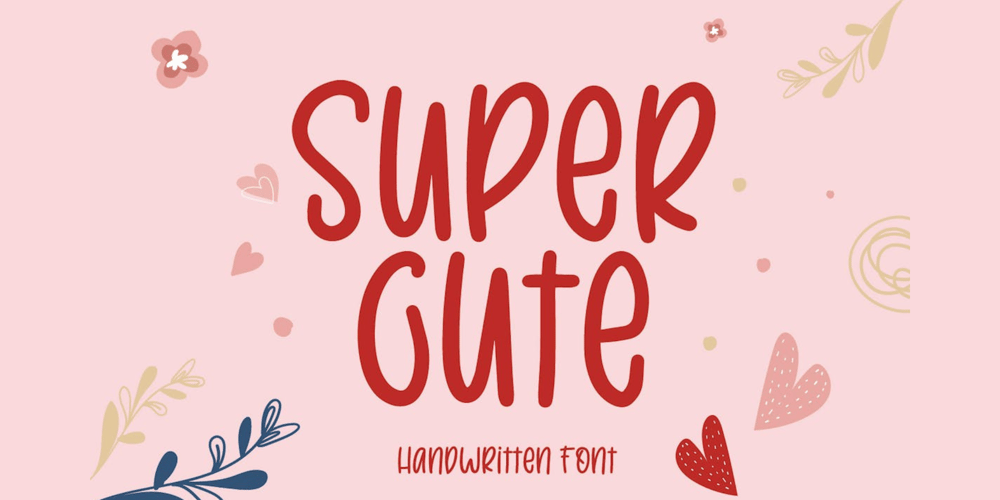
Super Cute
Super Cute font
Super Cute Font Family was designed by Irpan Maulana and published by Create Big Supply. Super Cute contains 1 styles and family package options. Created with love and attention to detail, this font instantly brings out the natural characteristics of your projects, adding a playful and whimsical touch. Whether you’re designing websites, SVG graphics, home decor items, branding materials, blogs, logos, invitations, or more, Super Cute is the perfect choice to infuse your creations with charm and character.Super Cute offers a versatile combination of uppercase and lowercase letters, providing endless possibilities for your typographic compositions. It also includes a comprehensive set of numbers and punctuation marks, ensuring your designs are complete and well-balanced. With multilingual support, this font allows you to communicate your message effectively across different languages and cultures.With PUA Encoding, Super Cute unlocks additional special characters and glyphs, allowing you to add extra flair and uniqueness to your designs.